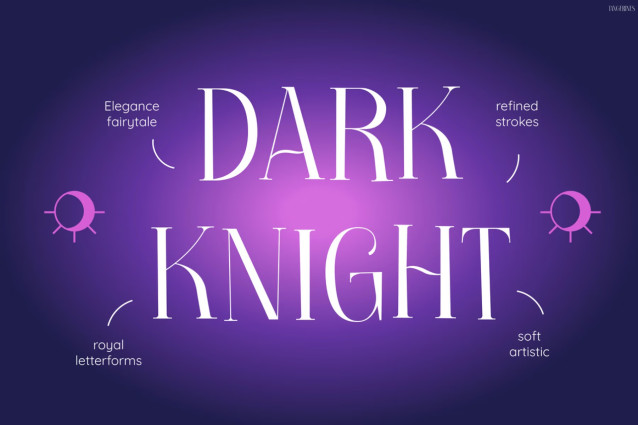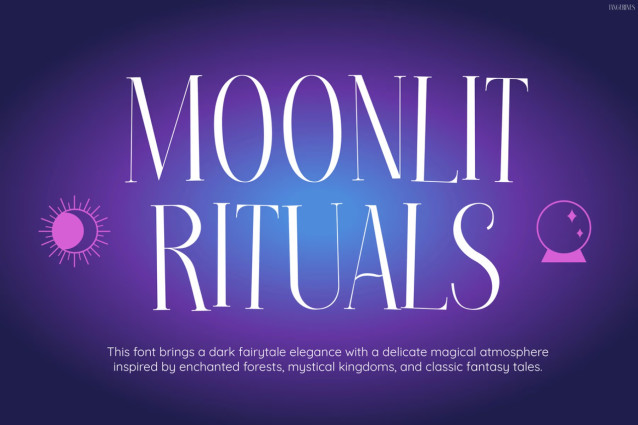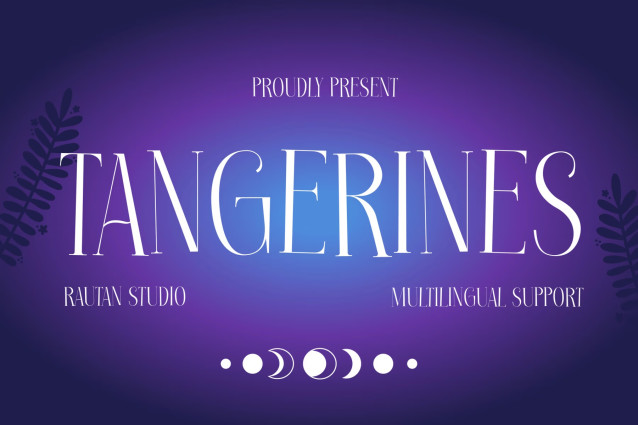
Tangerines Font
Kids Font Tangerines – Enchanted Serif Font with Dark Fantasy Charm
Kids Font Tangerines is a dreamy and magical display font that beautifully combines elegant serif typography with whimsical fantasy aesthetics. With its tall letterforms, mystical curves, and decorative details, this font instantly creates a captivating dark-fairytale atmosphere. Moreover, the artistic styling makes every title look more expressive, stylish, and unforgettable. In addition, the elegant serif shapes give your typography a premium and sophisticated appearance.
Because of its balanced readability, Kids Font Tangerines works perfectly for both digital and print projects. Furthermore, the magical visual style helps every design feel more immersive and imaginative. At the same time, the decorative details add a unique personality that instantly attracts attention